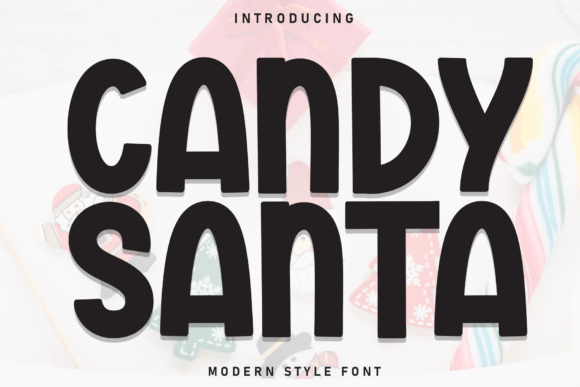
The Sweetest Font for Your Designs: A Deep Dive into Candy Santa
Ah, the elusive perfect font. We’ve all been there – stuck on a design project, scrolling through font after font, trying to find that one that brings our vision to life. I recall a particularly frustrating experience with a client’s Christmas-themed craft project. The brief was simple: create a festive and fun design that would appeal to kids and adults alike. But, as I was browsing through my font library, I just couldn’t find the right fit. That was until I stumbled upon Candy Santa, a sweet and friendly display font that instantly captured the holiday spirit.
An Honest Review of Candy Santa
So, what makes Candy Santa so special? Let’s dive into the good stuff and, of course, a few quirks I’ve noticed.
• ✨ Unique and Playful Style: Candy Santa’s natural and unique style makes it incredibly versatile and fitting for a wide range of designs.
• ✅ Ease of Use: This font is incredibly easy to read and works beautifully in both digital and print formats.
• 🎉 Festive and Fun: The font’s friendly and sweet personality shines through, making it perfect for holiday-themed projects, kids’ crafts, and more.
While Candy Santa is an amazing font, there are a few things to keep in mind:
• 🤔 Limited Use in Body Text: Due to its playful and decorative nature, Candy Santa might not be the best choice for lengthy body text. It’s perfect for headlines, titles, and short phrases, though!
• ⚠️ Glyph Limitations: As with any font, there might be limitations in terms of special characters or glyphs. Make sure to review the font’s character set before committing to a project.
The Designer Inspiration Behind Candy Santa
While the true origins of Candy Santa might be shrouded in mystery, it’s easy to imagine a designer inspired by the magic of the holiday season. Perhaps they wanted to create a font that captured the essence of childhood wonder and the excitement of receiving gifts under the tree. Whatever the inspiration, Candy Santa is undoubtedly a delightful addition to any design project.
Q: What type of projects is Candy Santa best suited for?
A: Candy Santa is incredibly versatile and can be used for a wide range of projects, from holiday-themed crafts and designs to kids’ party invitations and festive social media graphics.
Q: Is Candy Santa available in different weights or styles?
A: While Candy Santa might not have multiple weights, its unique style and OpenType features provide ample opportunities for creative experimentation.